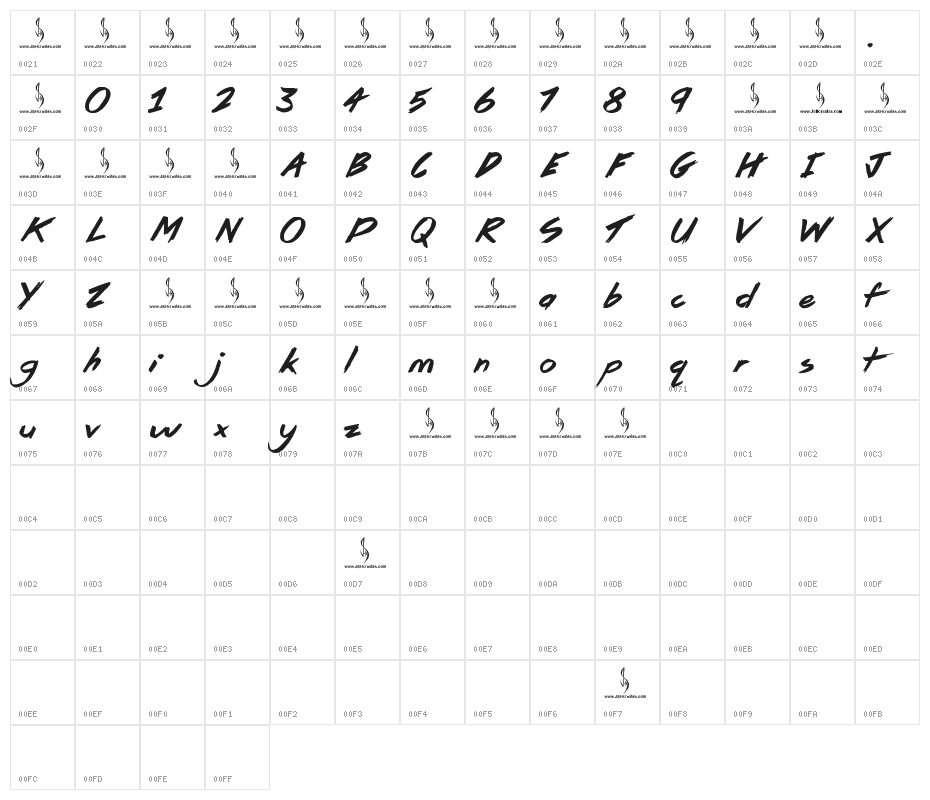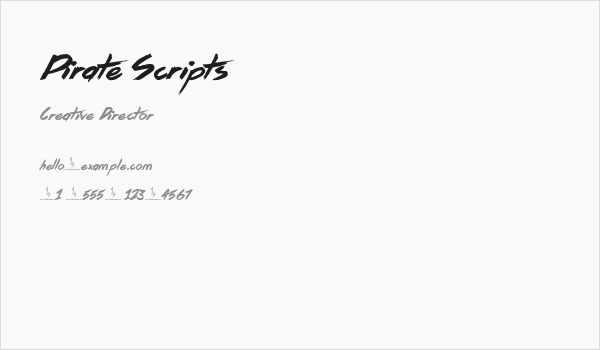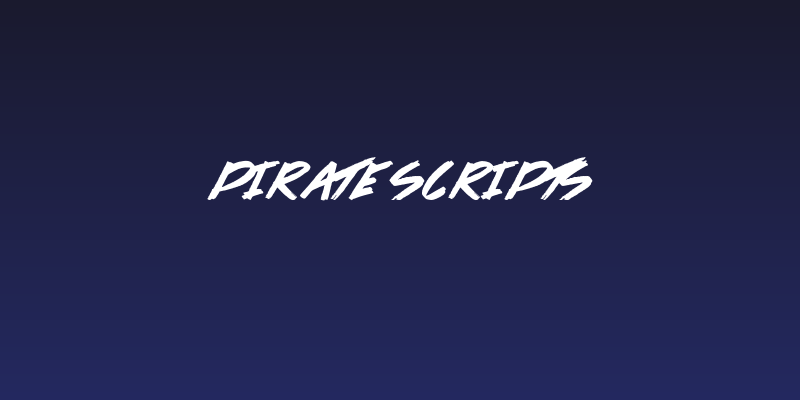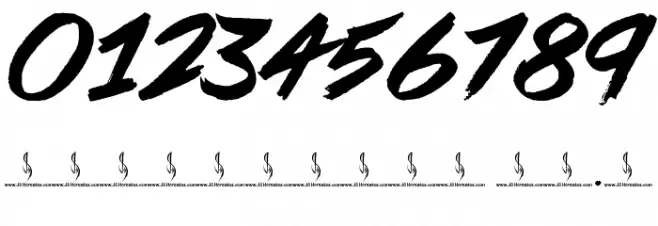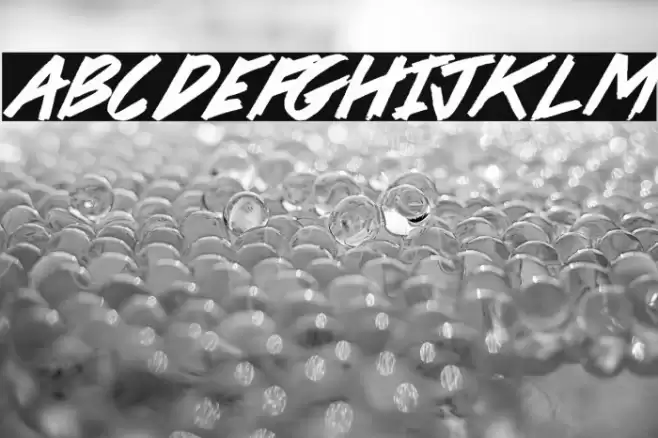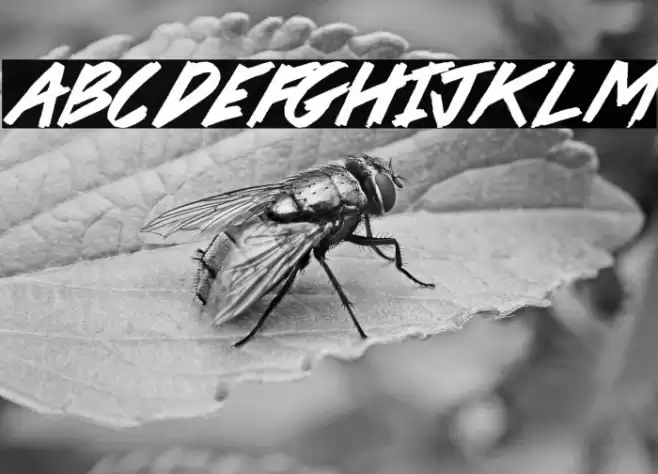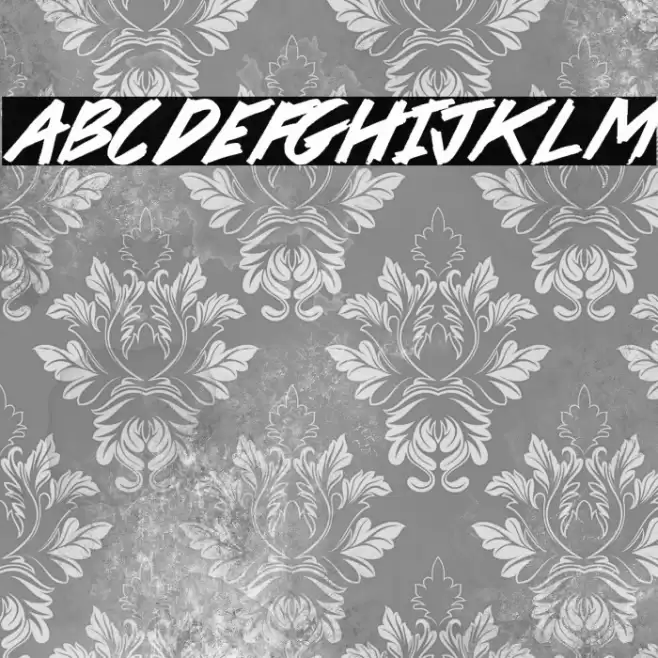
Pirate Scripts Font
Pirate Scripts Description
This font exudes a bold and adventurous spirit, reminiscent of pirate lore and high seas adventures. The letters are crafted with a brush-like texture, giving them a dynamic and energetic appearance. The strokes are thick and expressive, with a slight slant that adds to the sense of movement and excitement. Each character is unique, with playful variations that enhance the overall whimsical and daring aesthetic. The numbers and special characters maintain this lively style, ensuring consistency across all elements.
| Proposed Projects | Ideal for pirate-themed events, adventure book covers, themed restaurant menus, or any project requiring a bold and energetic typeface. |